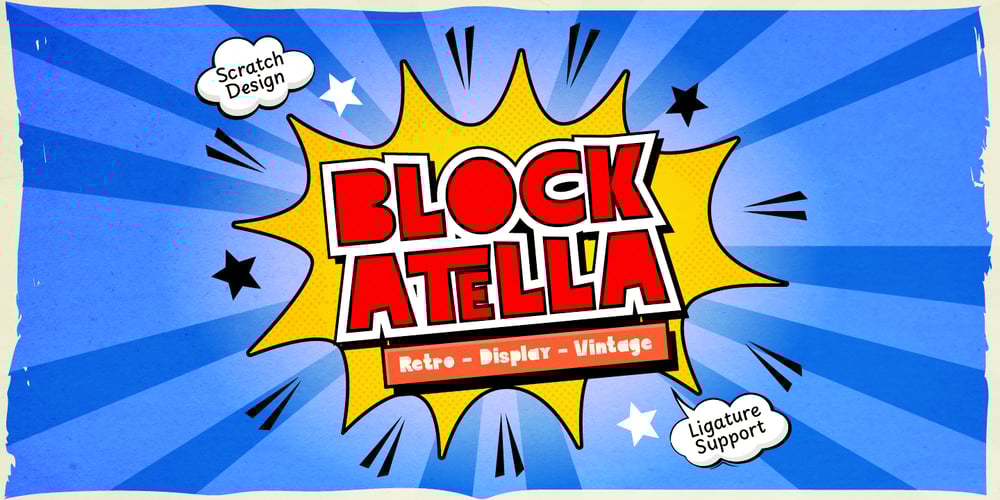
Block Atella Font Family was designed by Gitayogi Irhandi and published by Scratch Design. Block Atella contains 1 styles and family package options. Block Atella is a retro, vintage and playful typeface that has a quirky and cute characteristic. This font will be suitable for logos, labels, packaging, invitations, branding, advertising and other designs that need stand-out typeface for the design.What you’ll get: Uppercase and lowercase Numbers and punctuation Multilingual support Unique Ligatures We highly recommend using a program that supports OpenType features and Glyphs panels like many Adobe apps so that you can see and access all Glyph variations.We hope you enjoy our font!